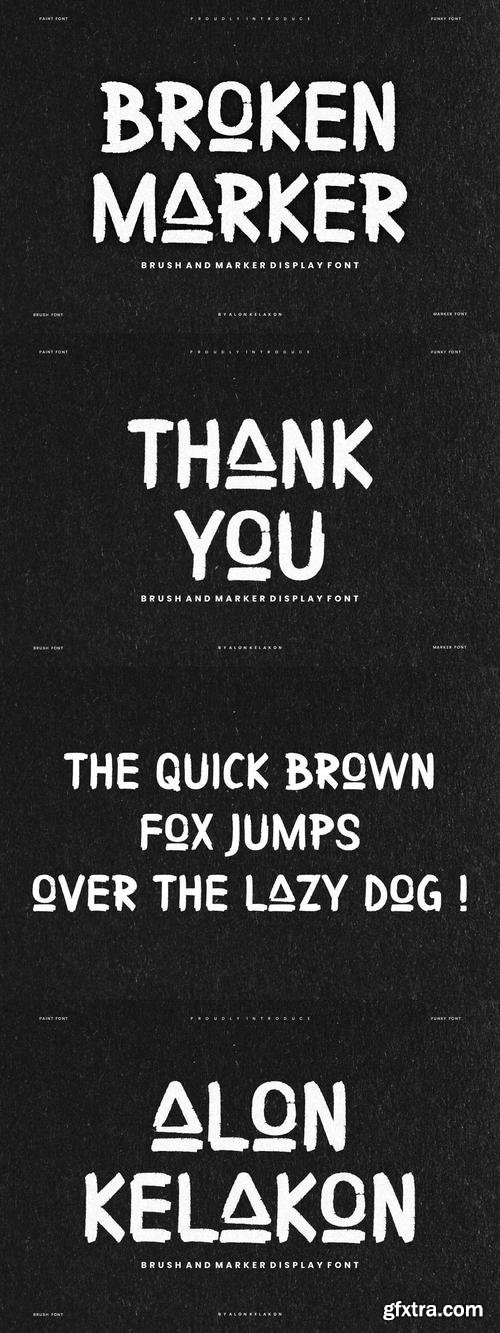
Broken Marker - Brush Font
Broken Marker Font is unique . Ready to use for your design like labeling, movie sceen, poster, movie title, gigs, album covers, logos, and much more.